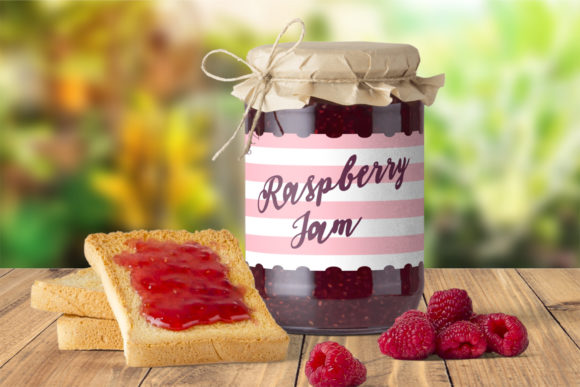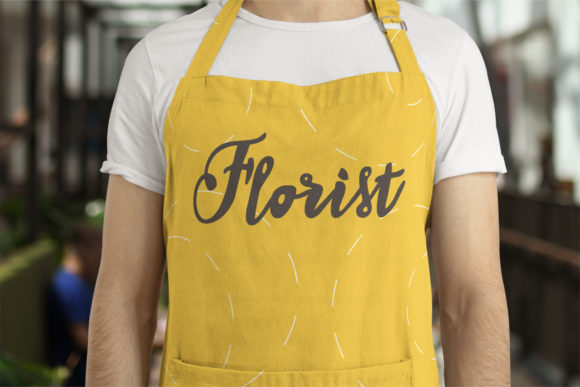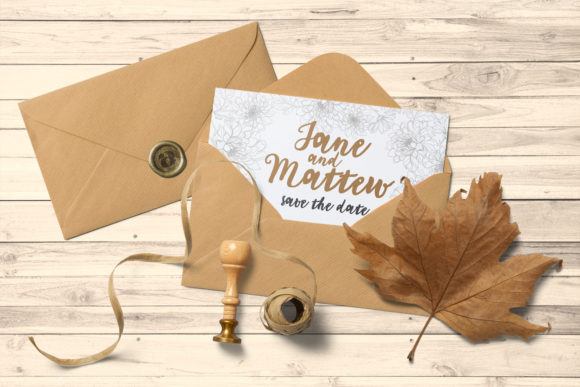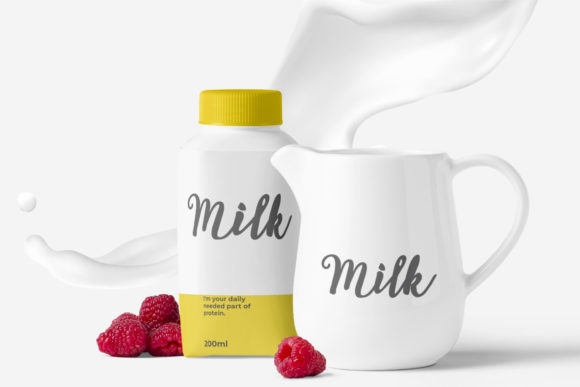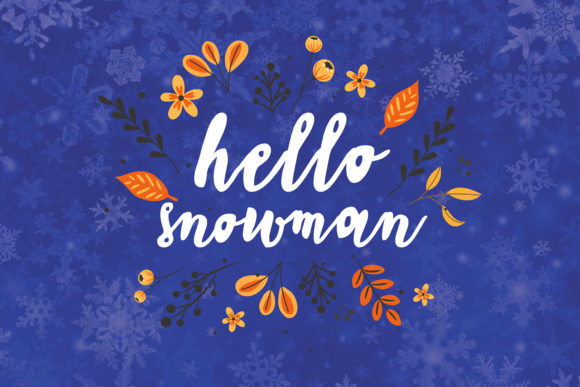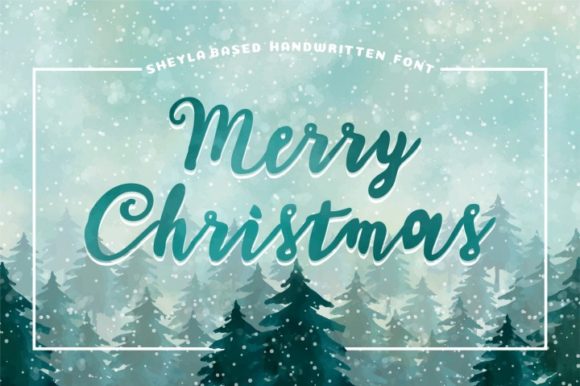
Introduction to Sheyla Font
Have you ever been in the midst of a creative project, struggling to find the perfect font to bring your vision to life? I know I have! It’s like searching for a missing puzzle piece – everything looks good, but it’s just not quite right. That’s why I’m excited to introduce you to the Sheyla Font, a chic handwritten brush font that’s sure to elevate your design game.
As a valuable design resource, the Sheyla Font offers a high-quality solution for designers seeking to add a touch of elegance to their work. With its beautiful, flowing script, it’s perfect for high-impact headlines, invitations, and blog posts. Plus, with a transparent background, it’s easy to layer and manipulate to achieve the desired effect.
Key Features of Sheyla Font
• High-quality design resource with a modern and elegant style, perfect for creative projects.
• Sheyla Font is available in a single weight, making it easy to use and integrate into any design project.
Honest Review: Sheyla Font
I recently stumbled upon the Sheyla Font, a free design resource that has caught my attention. As a designer, I appreciate high-quality fonts that can elevate a creative project to the next level.
The Sheyla Font boasts a beautiful, elegant design with a transparent background, making it perfect for various design applications.
• ✨ Elegant and sophisticated design that can add a touch of sophistication to any project
• ✨ High-quality design that is perfect for creative projects that require a professional touch
• ⚠️ Limited character set, which may not be suitable for extended text content
• ⚠️ May not be suitable for designs that require a bold, playful font
Overall, I’m impressed with the Sheyla Font’s design and versatility. While it may have some limitations, it’s a great addition to any designer’s toolkit. With its elegant design and transparent background, it’s perfect for a variety of creative projects.
The Sheyla Font is ideal for various design projects, including branding, marketing materials, and digital products. You can use it to create professional-looking designs with a touch of elegance.
Tips for Getting the Most Out of Sheyla Font
To get the most out of the Sheyla Font, use it in conjunction with other high-quality design resources. Experiment with different font combinations and sizes to create visually appealing designs. Additionally, use the font in conjunction with transparent backgrounds to add depth and dimension to your designs.